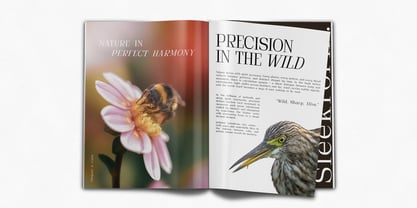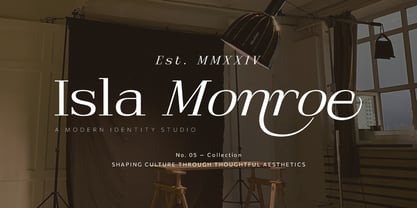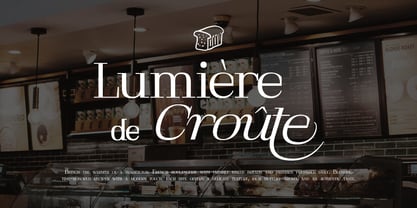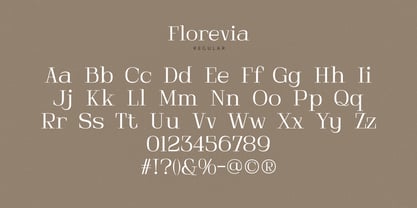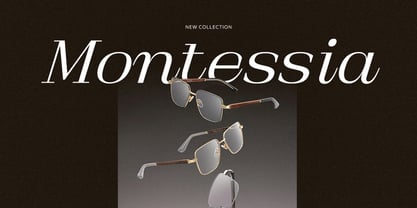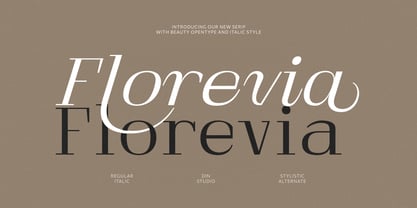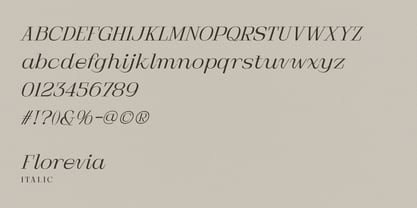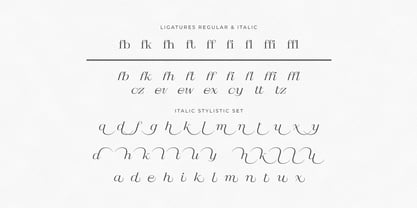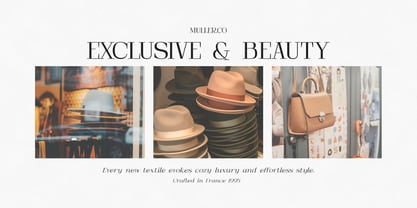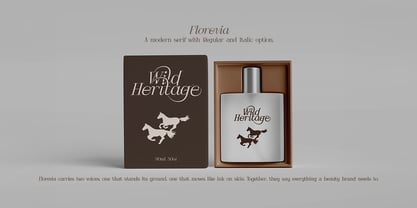
Florevia
by Din Studio
The Florevia Font Family was designed by Donis Miftahudin and published by Din Studio. Florevia contains 2 styles and family package options. More about this family
Florevia is a beautifully crafted serif font that combines simplicity and elegance in a timeless typographic design. With its clean letterforms, refined serif details, and balanced proportions, Florevia delivers a sophisticated appearance that works effortlessly across a wide range of creative projects. What makes Florevia even more special is its carefully designed italic version. The italic style adds a smooth and expressive flow that complements the regular form perfectly, offering additional versatility and charm. In addition, enjoy the features here.
Features:
• Ligatures
• Stylistic Sets
• Multilingual Supports
• Numerals and Punctuations
Florevia fits in logos, quotes, name cards, branding, posters, and many more designs. Find out more ways to use this font by taking a look at the font preview.
Designers: Donis Miftahudin
Foundry: Din Studio